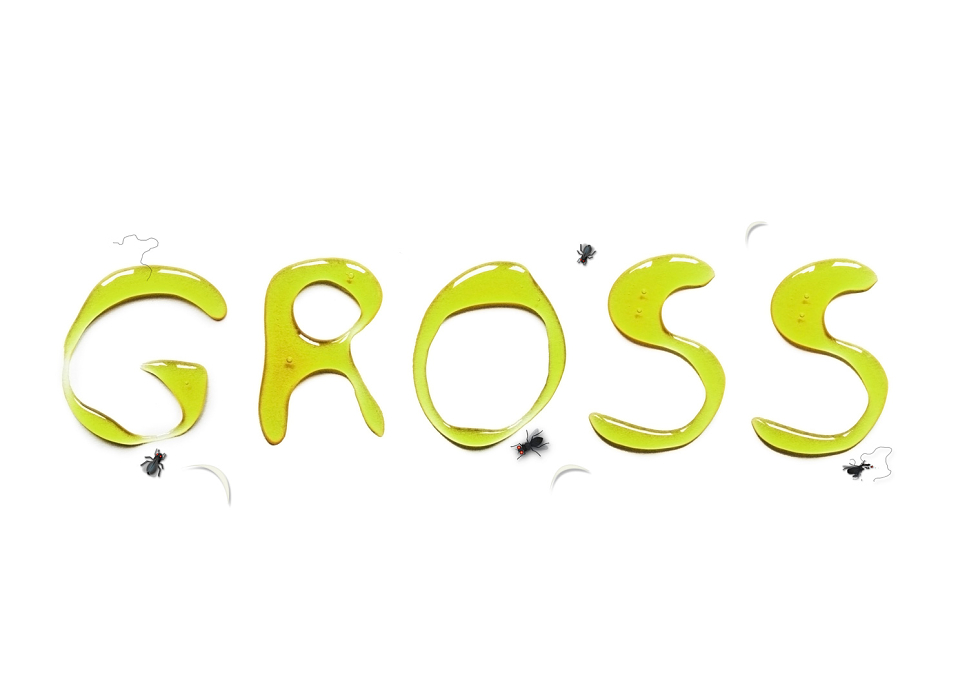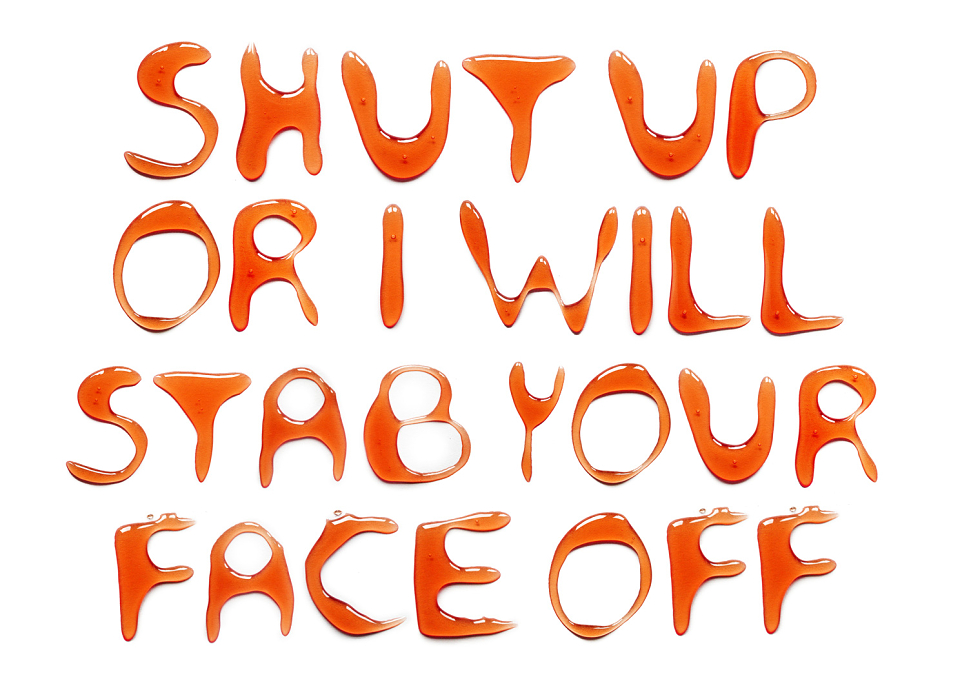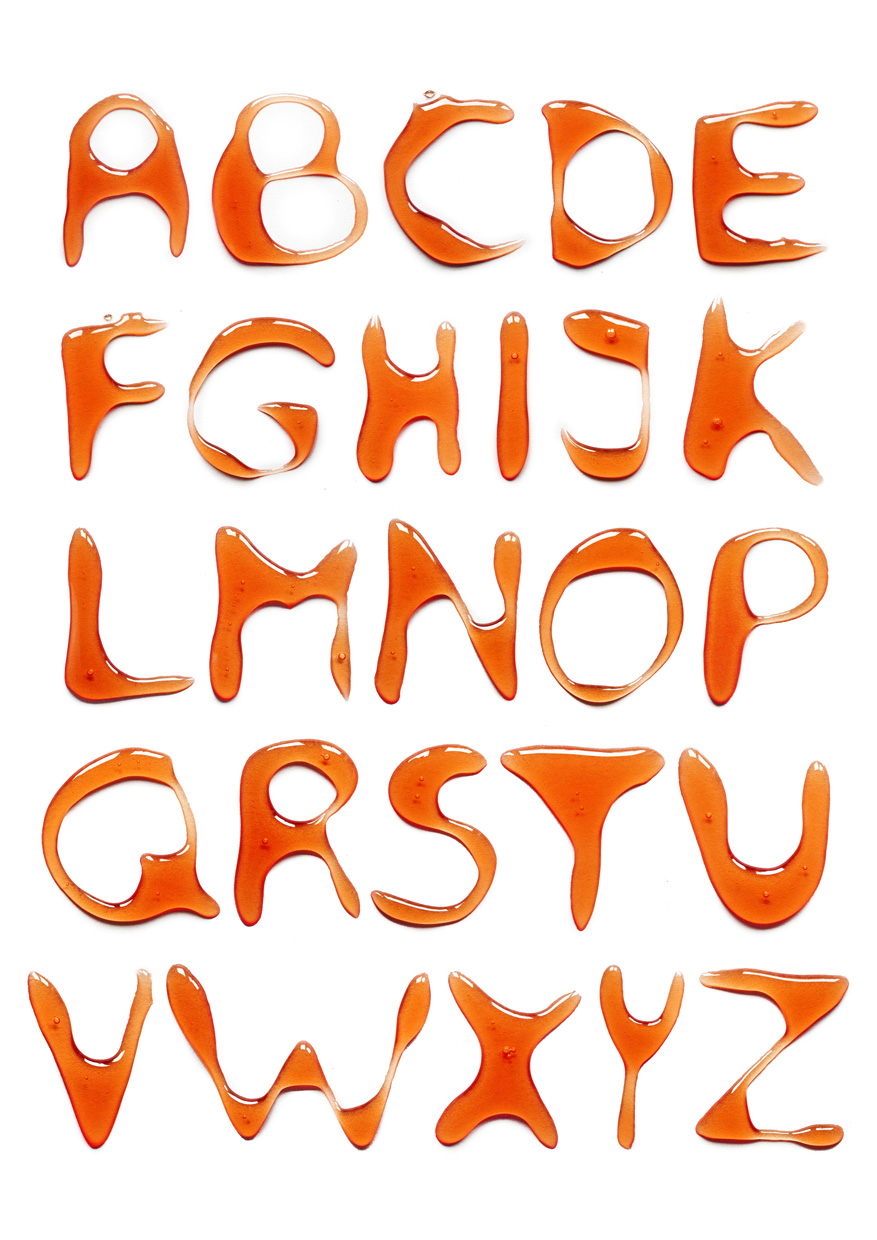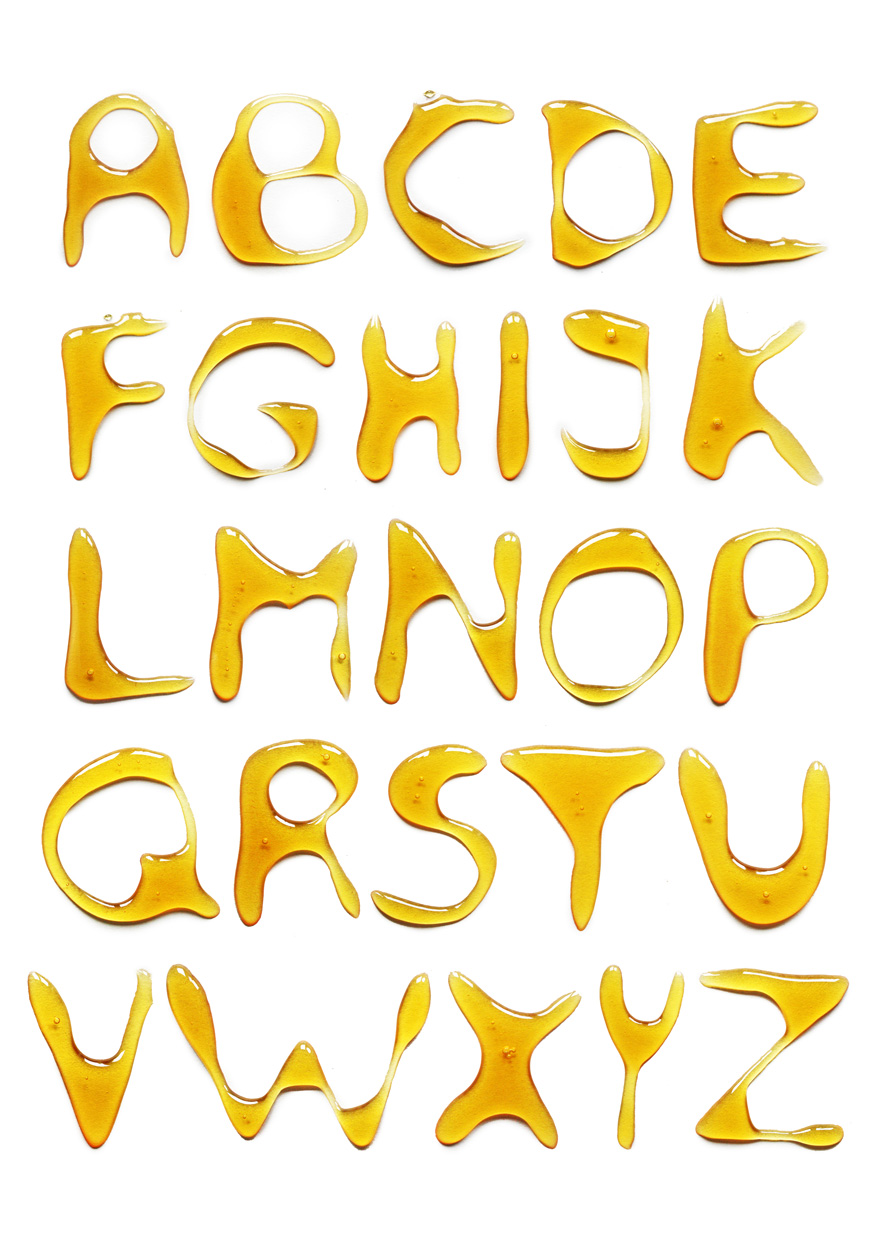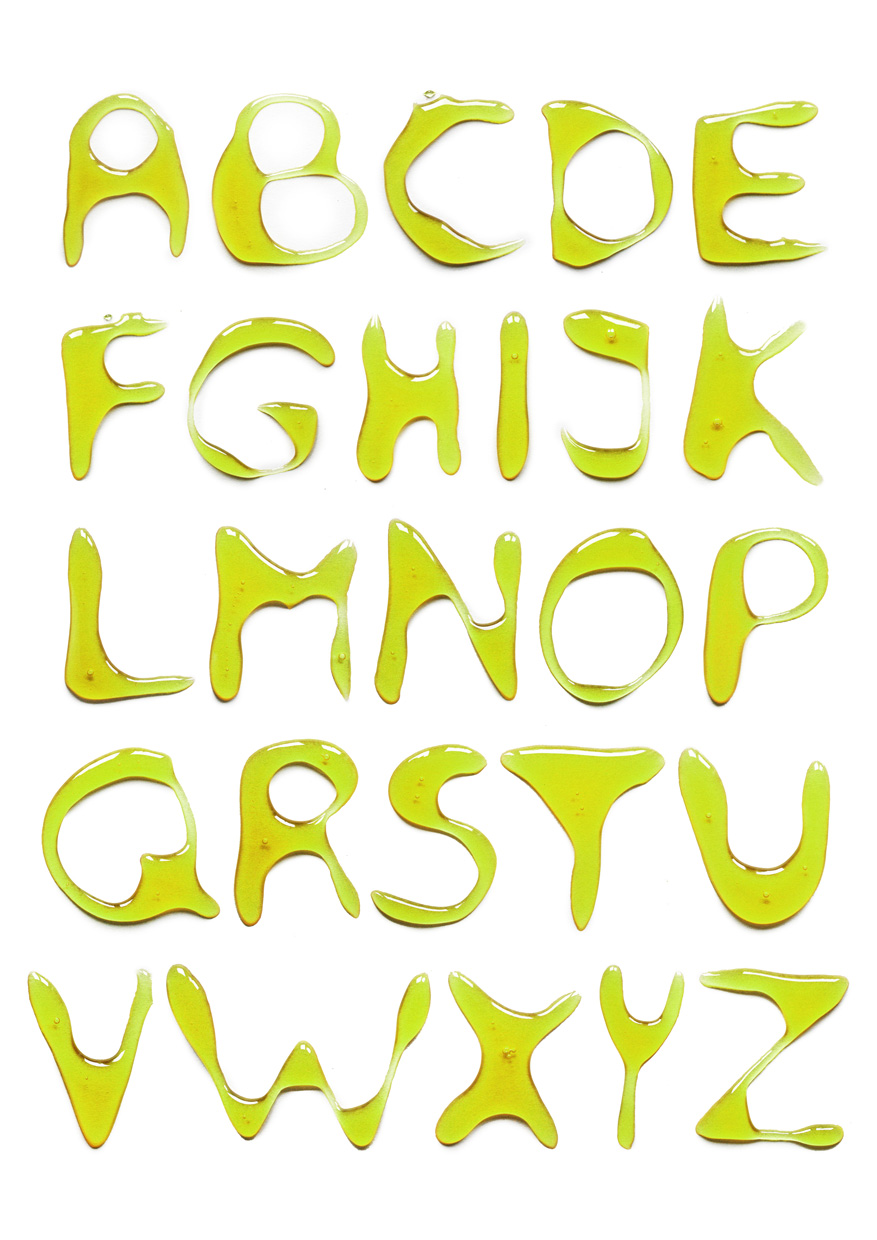
I rolled out a huge sheet of paper on the dining room table and raided the cupboards for something gloopy to 'draw' with, settling on a squeezy golden syrup bottle. I didn't set out with anything specific in mind, but after a few minutes I had started drawing some really interesting lettering. Deciding that I should really plan this a bit if I didn't want to get through the whole roll of paper; and bottle of syrup! I very lightly sketched out the alphabet, so it was barley visible. Carefully I started to go over the letters with the syrup. I realised very quickly that if I waited until the end to photograph each letter they would all have turned into syruppy puddles... so ran to get my canon and started to shoot each letter just after I had drawn it. Later I open the image files on my mac and cleaned them up etc. I now had a gloopy font to use for all kinds of things... including a project I was working on at the time called 'The Art of Eavesdropping'. After experimenting a bit with colours and making a few posters for my project, I confess I forgot about the font a bit. But my Creative Director has been nagging for literally years to get this done properly with numbers and symbols too. So watch this space!
Syrup font